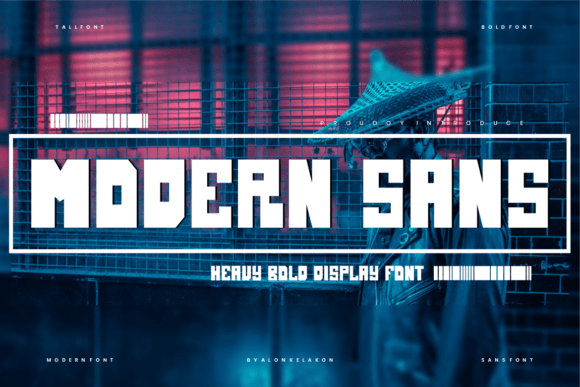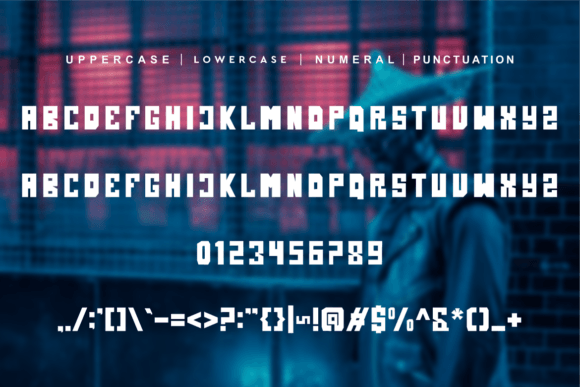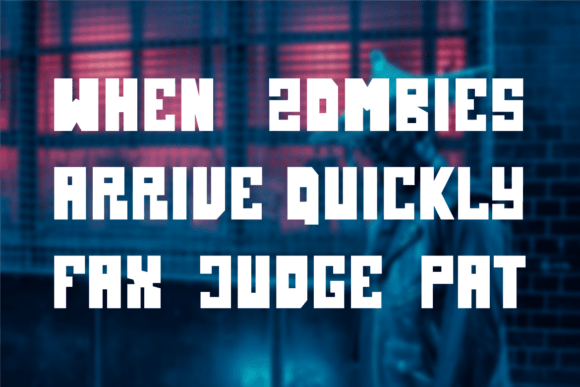
Introduction to Renkuga Font
Have you ever been stuck on a creative project, staring blankly at your screen, trying to find the perfect font to bring your vision to life? We’ve all been there. But what if you could find a font that not only elevates your design but also makes a statement? Enter the Renkuga Font, a bold and assertive sans serif font that’s about to become your new go-to design resource.
This high-quality font is more than just a pretty face – it’s a game-changer for designers who want to make a lasting impression. Whether you’re working on a personal project or a commercial design, the Renkuga Font has the potential to take your creation to the next level. And the best part? It’s available for free download, complete with a transparent background that lets your design shine.
Key Features of Renkuga Font
- High-quality design resource with a transparent background, ideal for creative projects requiring a modern and sleek aesthetic.
- High-resolution design, suitable for use in large-scale creative projects, such as billboards, posters, or digital displays.
- Unique characteristics, including a bold and playful style, making it an excellent choice for designers looking to add a distinctive touch to their work.
- Large character set, including a wide range of letters, numbers, and punctuation marks, ensuring versatility and flexibility in design applications.
Honest Review: Renkuga Font
As a designer, I’m always on the lookout for high-quality design resources to elevate my creative projects. The Renkuga Font caught my attention, and I was excited to try it out.
Here are some things that work well: ✨
- Unique and creative design style that adds a touch of elegance to any project.
- High-quality glyphs that are perfect for titles and headings.
- Transparent background option makes it easy to use with any design background.
However, there are a few limitations: ⚠️
- Limited character set, which may not be suitable for longer blocks of text.
- No bold or italic font weights, which can be a limitation for certain design projects.
Overall, I’m impressed with the Renkuga Font, and I would recommend it to designers who need a high-quality, unique font for their creative projects. The free download is a bonus, making it an excellent design resource for anyone on a budget.
Tips for Getting the Most Out of Renkuga Font
Renkuga Font is a high-quality design resource perfect for creative projects. To get the most out of it, use it with a transparent background to create visually appealing designs. Experiment with different font sizes and colors to add depth and interest to your project.
Renkuga Font is ideal for use in presentations, social media graphics, and blog posts. Its high-quality design makes it perfect for creative projects where you want to make a statement. With its transparent background, you can easily combine it with other design elements to create unique and eye-catching designs.
What is the recommended font size and style for optimal readability?
The optimal font size and style for the Renkuga Font will depend on the specific design project and intended use. However, as a general guideline, we recommend using the font at a size between 12-24 points for optimal readability. You can also experiment with different font styles, such as bold or italic, to add emphasis and visual interest to your design.